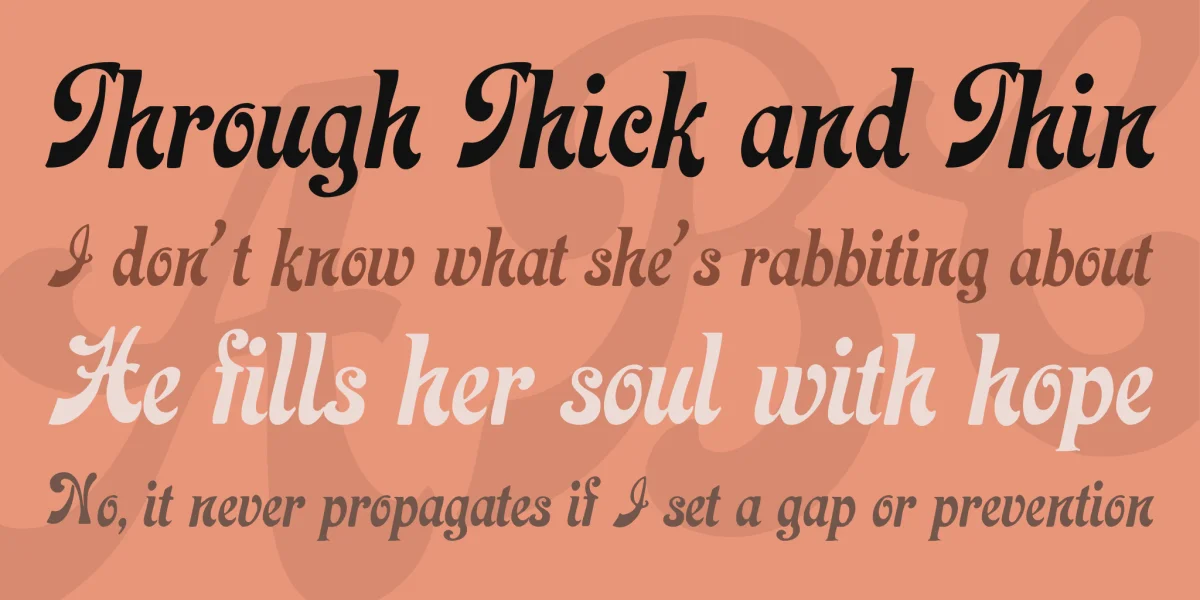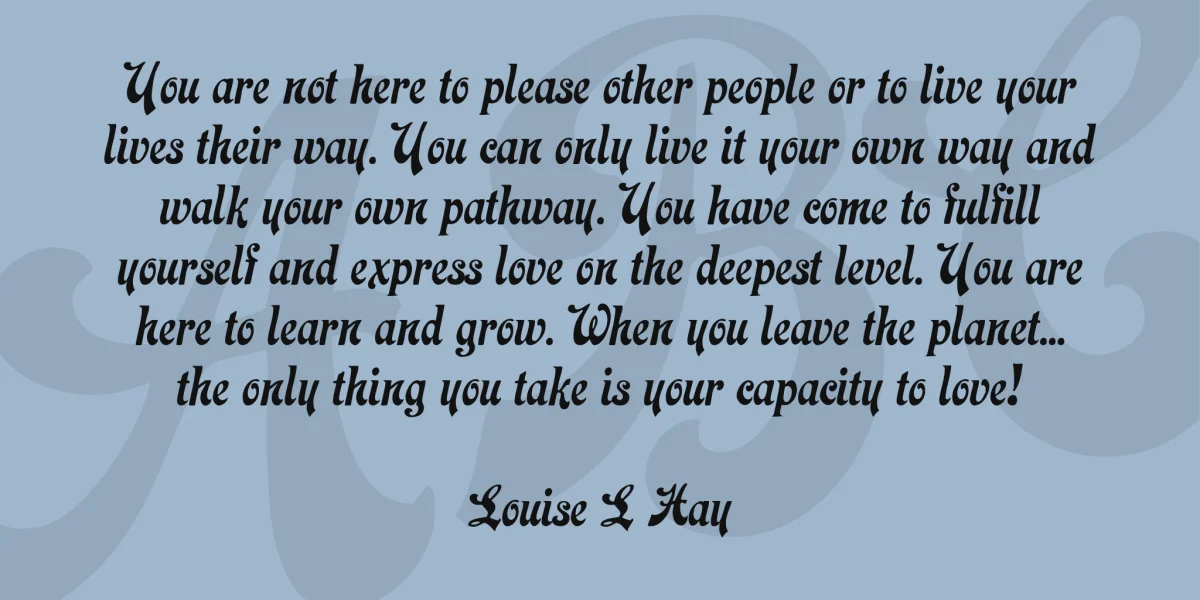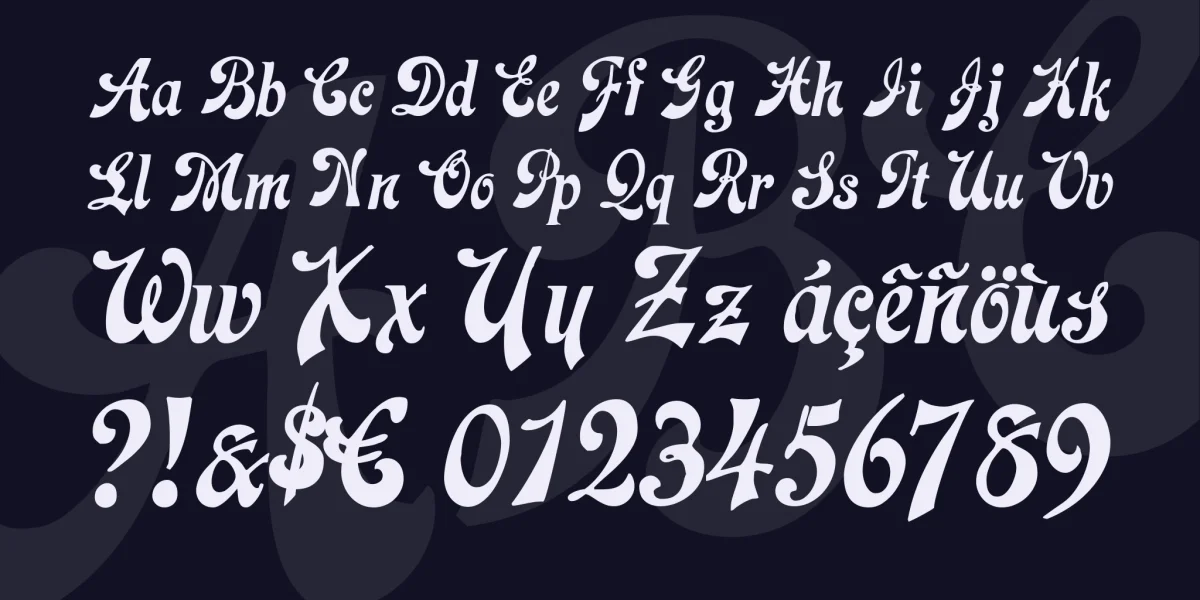
In 1922, the German-American type designer and punch cutter Robert Wiebking cut the font Laclede for Barnhart Brothers & Spindler in Chicago, named after Pierre Laclede, founder of St. Louis. The publication has been distributed by the Amiercan Type Founders after the company Barnhart Brothers & Spindler was closed ibn 1933.